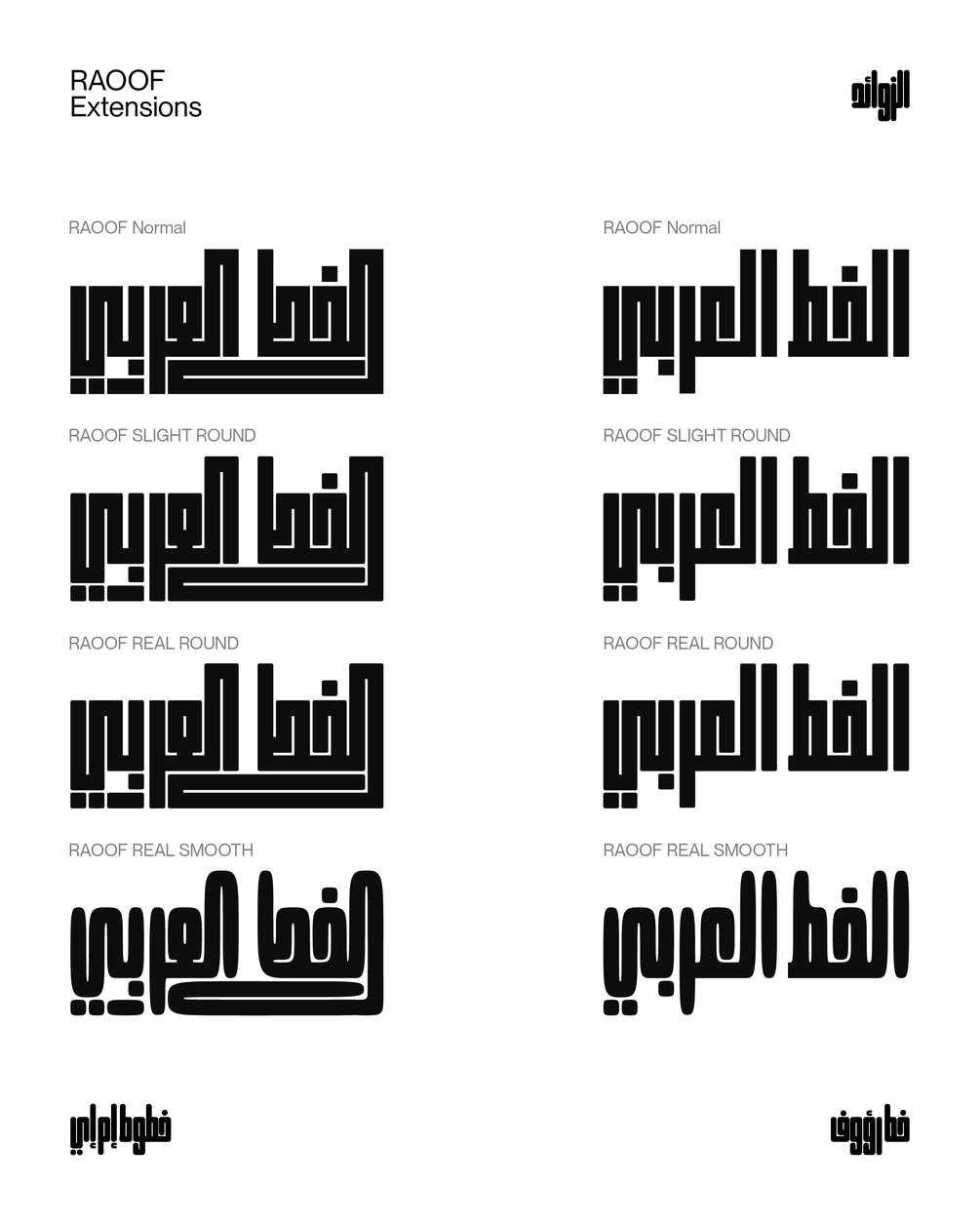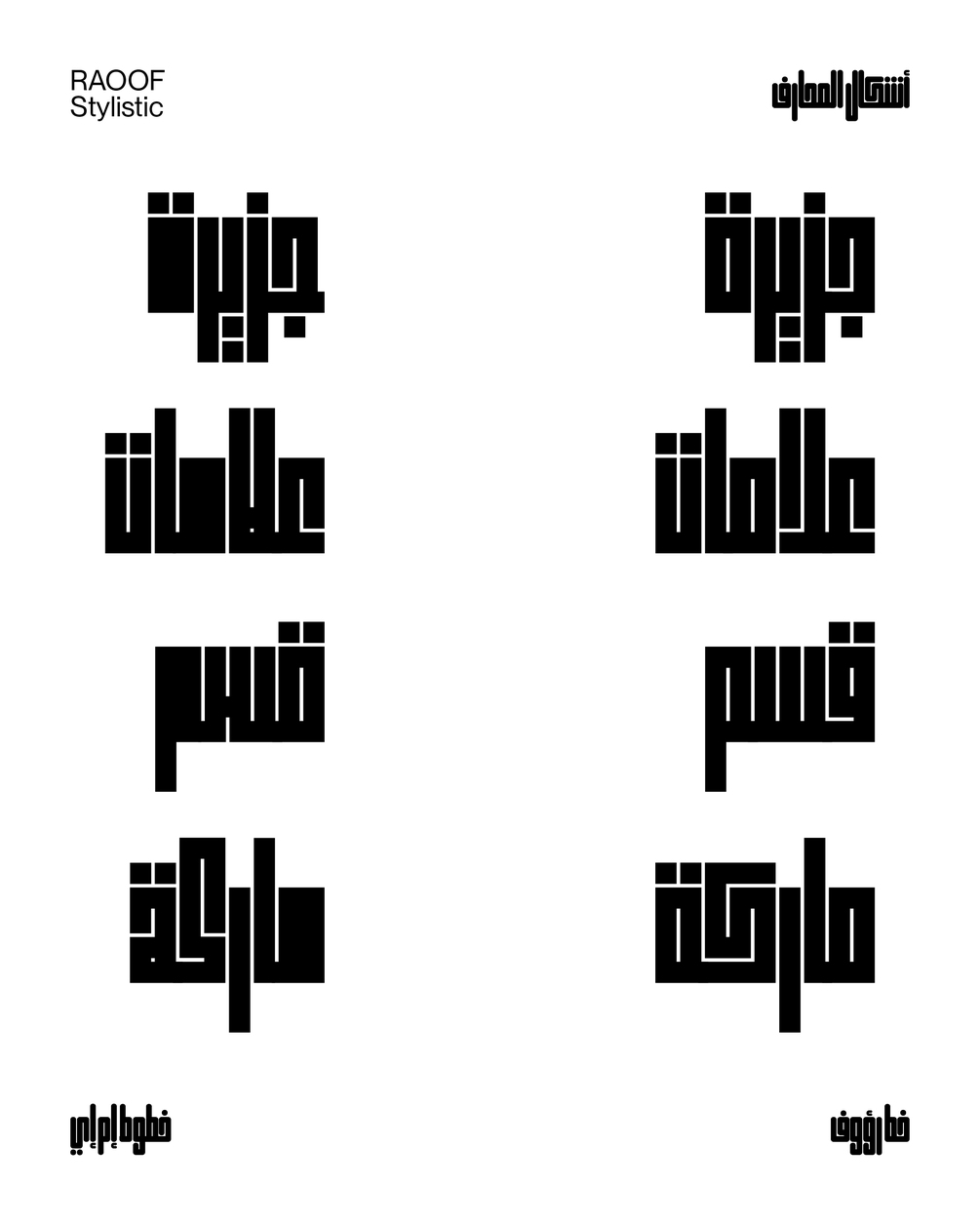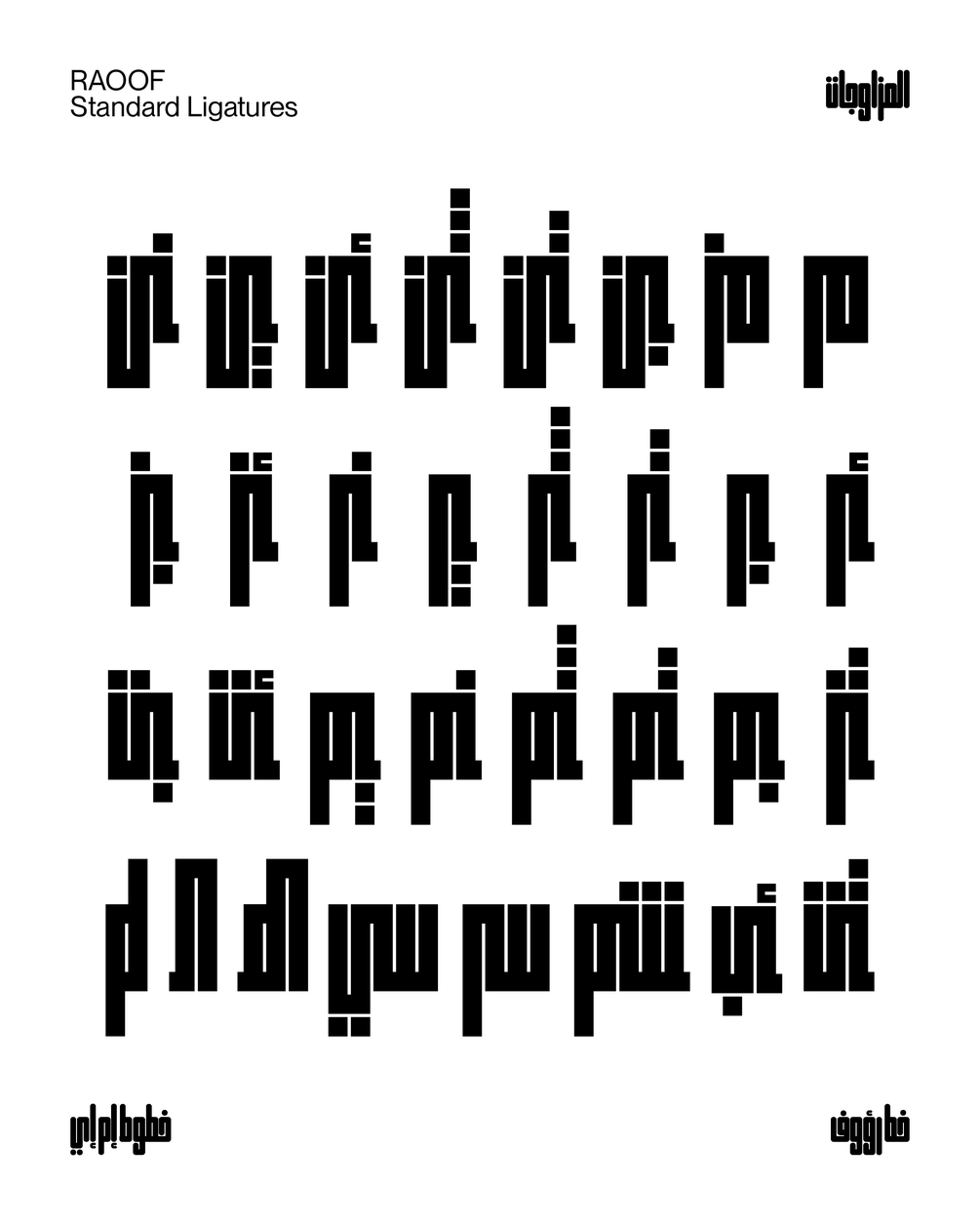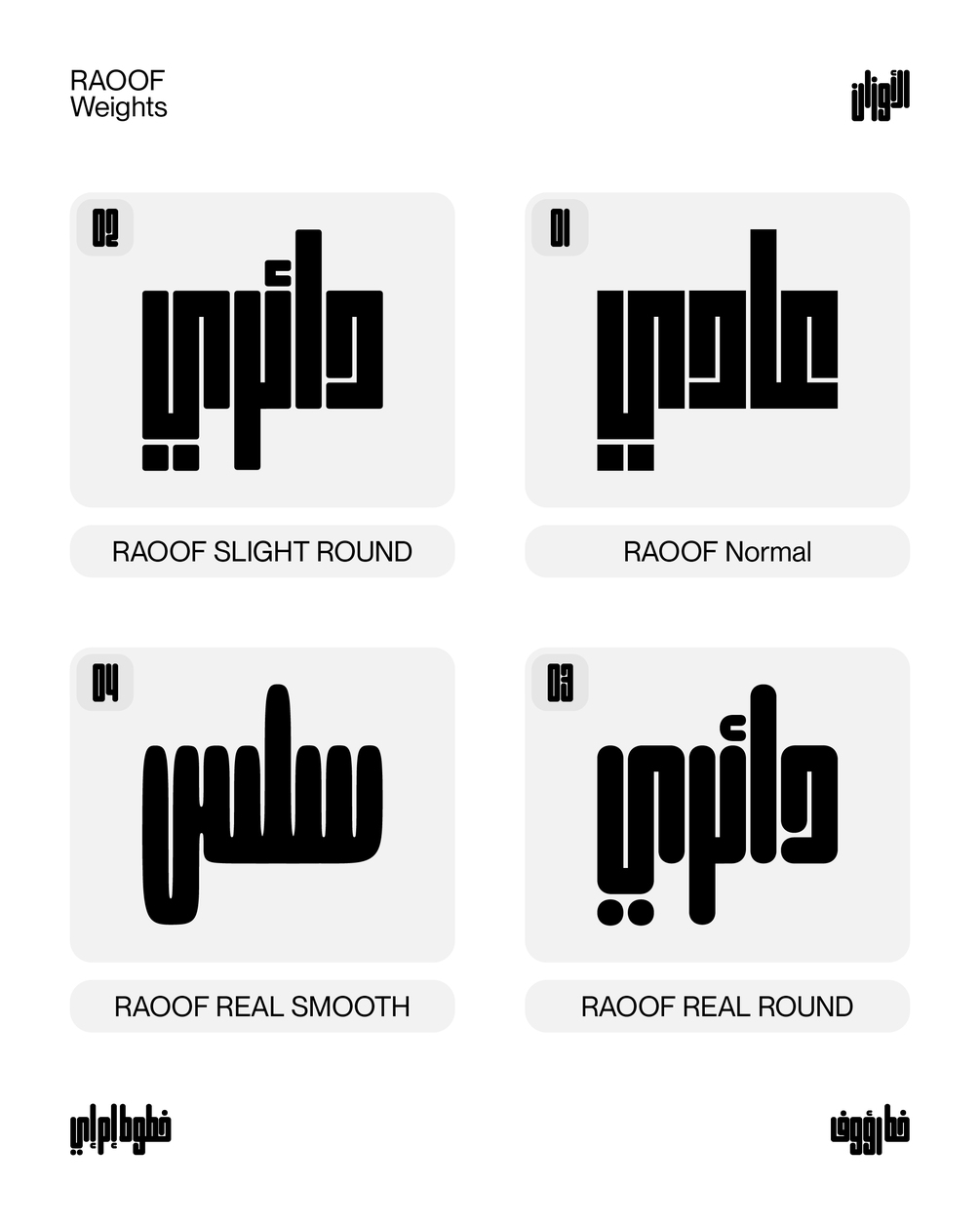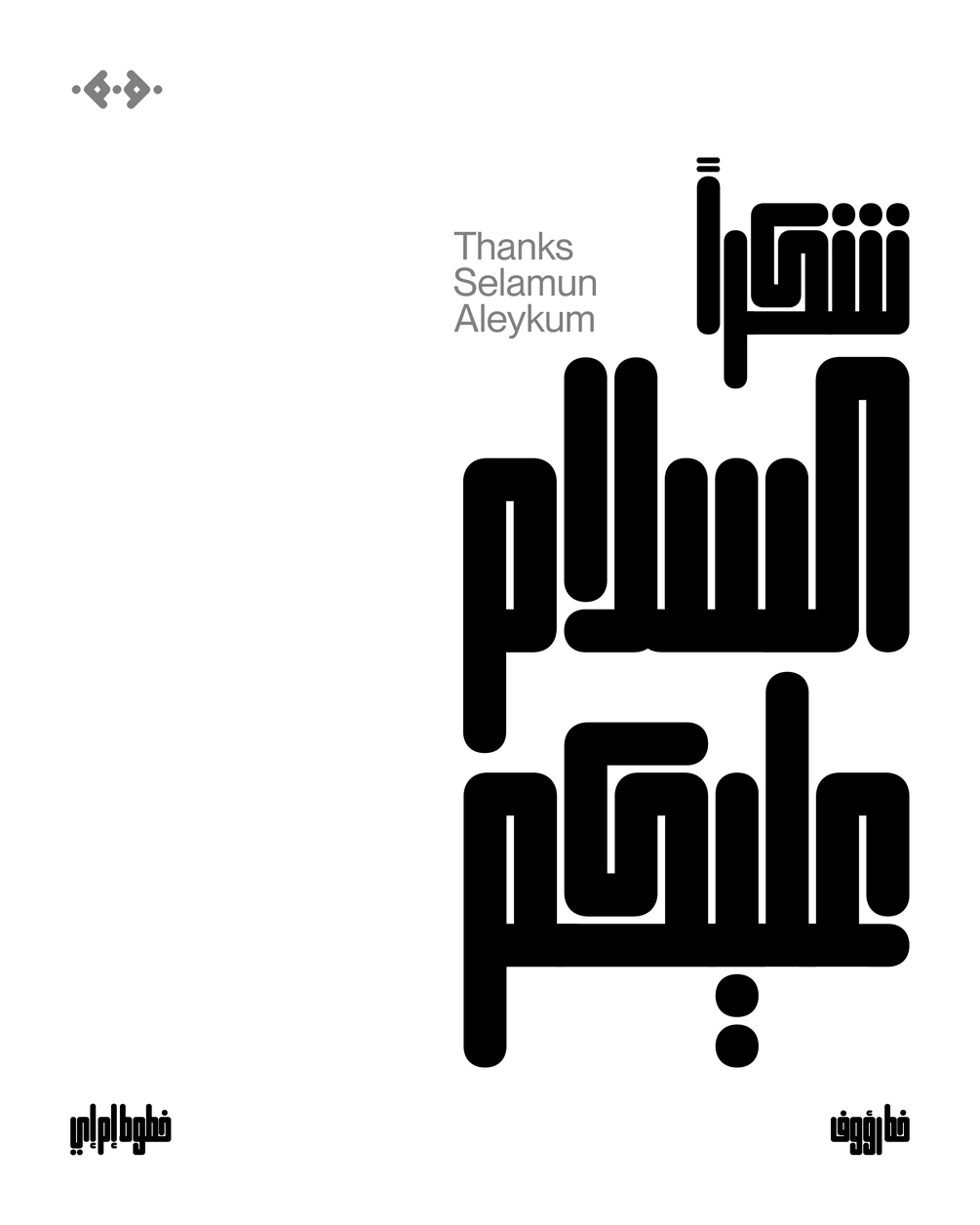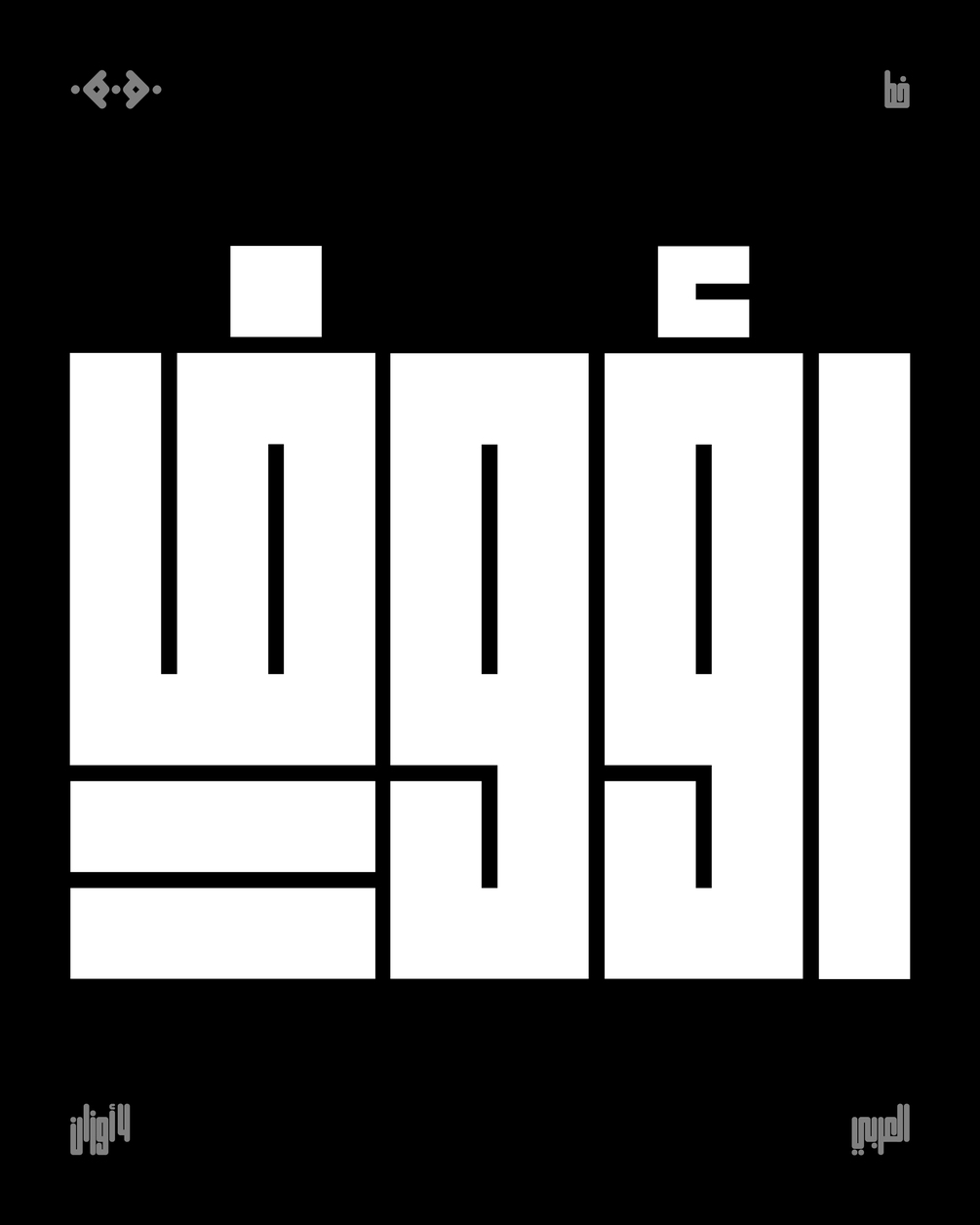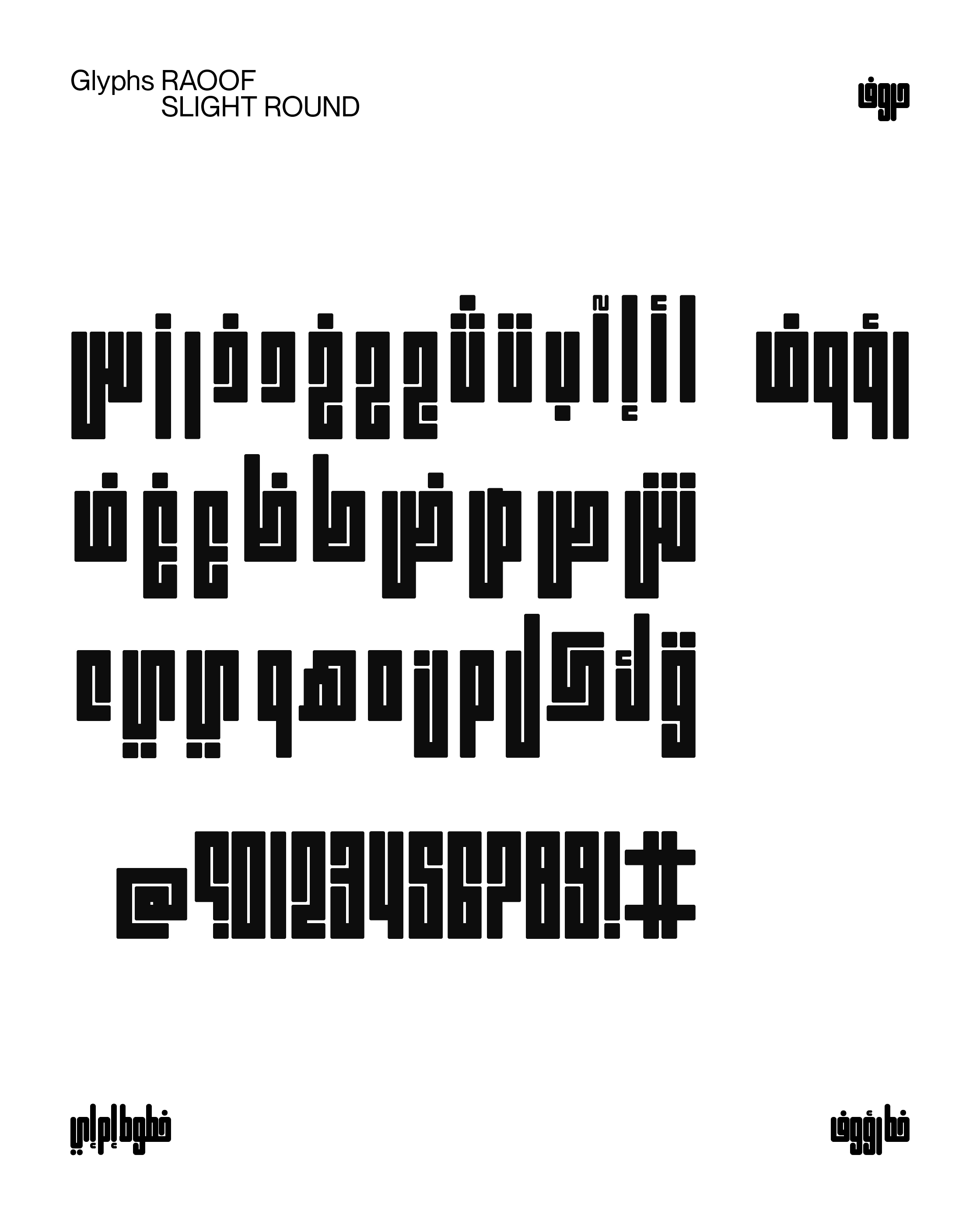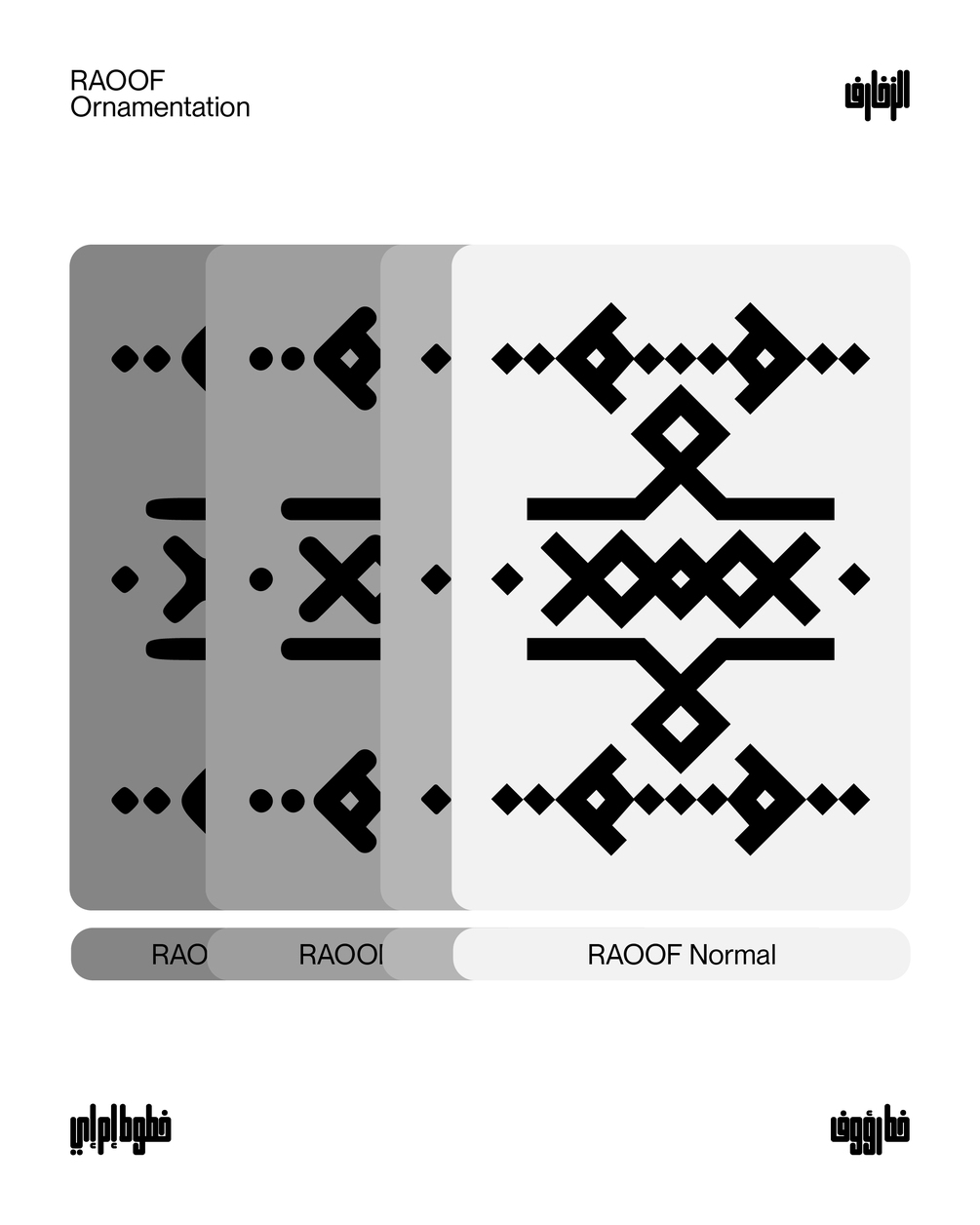
RAOOF / Kufi / 4 Weights
RAOOF Arabic is an exquisite Arabic typeface inspired by Kufic square calligraphy.
It offers a versatile selection with four weights, each accompanied by numerous features.
The font boasts various letterforms, additions, ligatures, and square ornamental shapes.
Among its weights are the classic Square Regular, the subtly rounded SLIGHT ROUND, and the elegantly curved RAOOF REAL ROUND and RAOOF REAL SMOOTH. Drawing inspiration from the essence of Kufic square calligraphy, RAOOF Arabic captures the balance between tradition and modernity, offering a unique and visually appealing choice for diverse design applications.